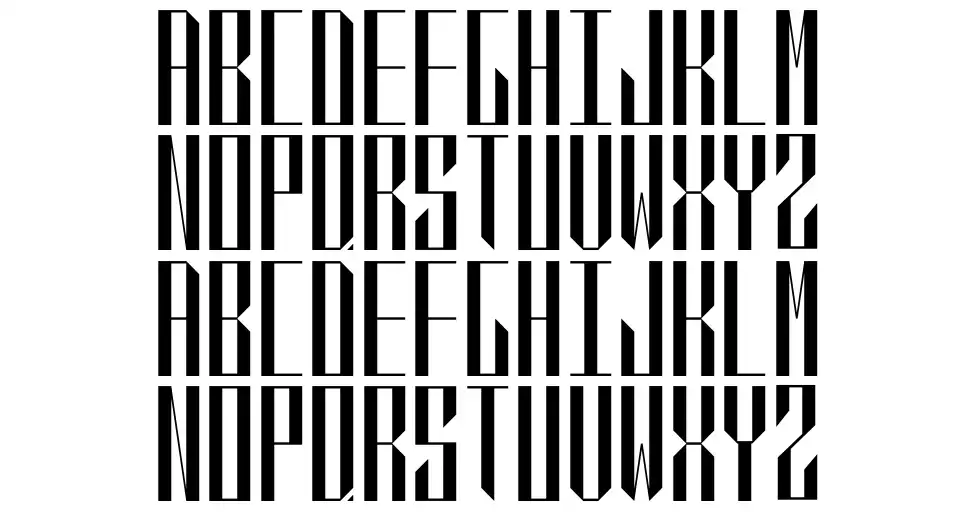
What Is A Sharp Font . Classifying fonts can help you decide which style to choose and what combinations to use for your next project. Typefaces come in all different shapes and sizes and can be categorized depending on their characteristics. These fonts, characterized by their sharp edges, geometric shapes, and distinct letterforms, bring a unique energy and personality to projects across various industries. A certain variation of a typeface family (e.g., arial bold, times new roman italic). Click to find the best 306 free fonts in the sharp style. Sharp fonts are typefaces characterized by their crisp, clean edges and pointed angles, creating a sleek and modern look. Sharp fonts offer a remarkable visual impact and a sense of precision that can elevate any design. Fonts can be based in different eras—most type forms were influenced by history. It is used to describe how bold or faint. Whatthefont works by searching through its database and comparing its fonts to the one in your image. Every font is free to download! Perfect for bold designs, adding a modern, edgy twist to any project. These fonts often feature geometric shapes, straight. The app will list all font matches and give you a preview of how each looks like. Unleash creativity with free sharp fonts!
Classifying fonts can help you decide which style to choose and what combinations to use for your next project. These fonts often feature geometric shapes, straight. Unleash creativity with free sharp fonts! It is used to describe how bold or faint. The app will list all font matches and give you a preview of how each looks like. Whatthefont works by searching through its database and comparing its fonts to the one in your image. Typefaces come in all different shapes and sizes and can be categorized depending on their characteristics. These fonts, characterized by their sharp edges, geometric shapes, and distinct letterforms, bring a unique energy and personality to projects across various industries. Fonts can be based in different eras—most type forms were influenced by history. Perfect for bold designs, adding a modern, edgy twist to any project.
What Is A Sharp Font Typefaces come in all different shapes and sizes and can be categorized depending on their characteristics. Whatthefont works by searching through its database and comparing its fonts to the one in your image. These fonts often feature geometric shapes, straight. A certain variation of a typeface family (e.g., arial bold, times new roman italic). It is used to describe how bold or faint. Unleash creativity with free sharp fonts! Perfect for bold designs, adding a modern, edgy twist to any project. Sharp fonts offer a remarkable visual impact and a sense of precision that can elevate any design. Sharp fonts are typefaces characterized by their crisp, clean edges and pointed angles, creating a sleek and modern look. Every font is free to download! Click to find the best 306 free fonts in the sharp style. The app will list all font matches and give you a preview of how each looks like. Typefaces come in all different shapes and sizes and can be categorized depending on their characteristics. Fonts can be based in different eras—most type forms were influenced by history. Classifying fonts can help you decide which style to choose and what combinations to use for your next project. These fonts, characterized by their sharp edges, geometric shapes, and distinct letterforms, bring a unique energy and personality to projects across various industries.
Sharp free font download What Is A Sharp Font Whatthefont works by searching through its database and comparing its fonts to the one in your image. These fonts often feature geometric shapes, straight. It is used to describe how bold or faint. Sharp fonts are typefaces characterized by their crisp, clean edges and pointed angles, creating a sleek and modern look. Sharp fonts offer a remarkable visual impact and. What Is A Sharp Font.
42 Cool Sharp Fonts (Pointy Fonts to Download!) What Is A Sharp Font Classifying fonts can help you decide which style to choose and what combinations to use for your next project. Fonts can be based in different eras—most type forms were influenced by history. Sharp fonts offer a remarkable visual impact and a sense of precision that can elevate any design. The app will list all font matches and give you a. What Is A Sharp Font.
Sharp Angular Spike Font Alphabet เวกเตอร์สต็อก (ปลอดค่าลิขสิทธิ์ What Is A Sharp Font Fonts can be based in different eras—most type forms were influenced by history. The app will list all font matches and give you a preview of how each looks like. Click to find the best 306 free fonts in the sharp style. Perfect for bold designs, adding a modern, edgy twist to any project. Sharp fonts offer a remarkable visual. What Is A Sharp Font.
15+ Best Sharp Fonts for Visually Striking Designs What Is A Sharp Font These fonts, characterized by their sharp edges, geometric shapes, and distinct letterforms, bring a unique energy and personality to projects across various industries. The app will list all font matches and give you a preview of how each looks like. These fonts often feature geometric shapes, straight. Typefaces come in all different shapes and sizes and can be categorized depending. What Is A Sharp Font.